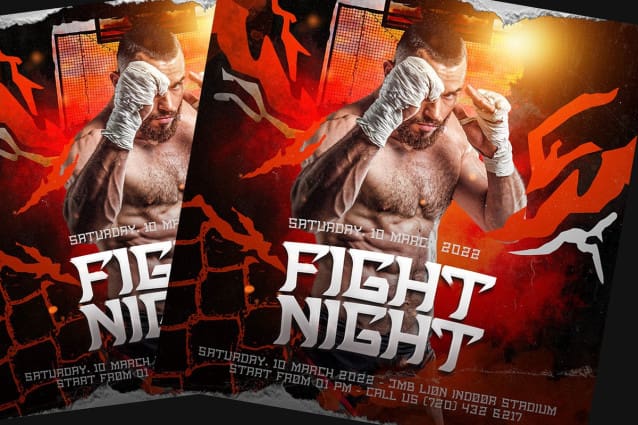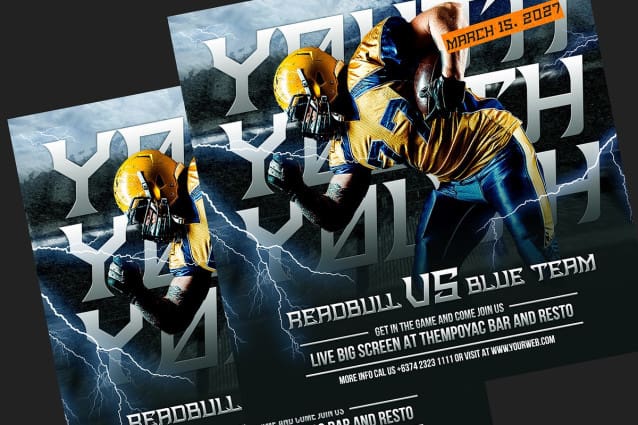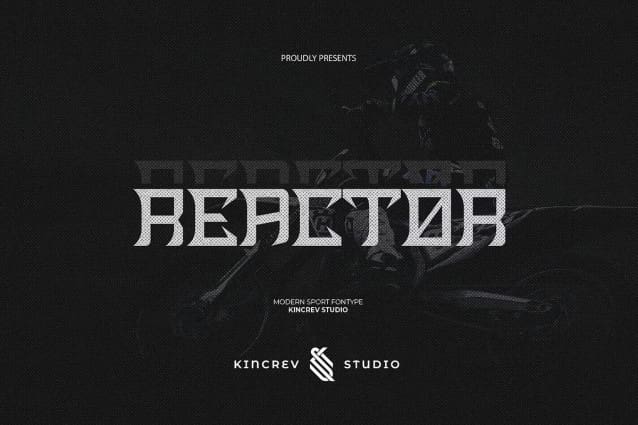
Reactor Display Font
Reactor Display Font a display font is font for you to get your designs with stylist, bold, and modern sporty look. It is made in allcaps style which are simple and easy on the eyes and nice to look at, and easy to read. This font is designed to bring your brandings to life and add a touch of sporty modern, bold, fun and style.